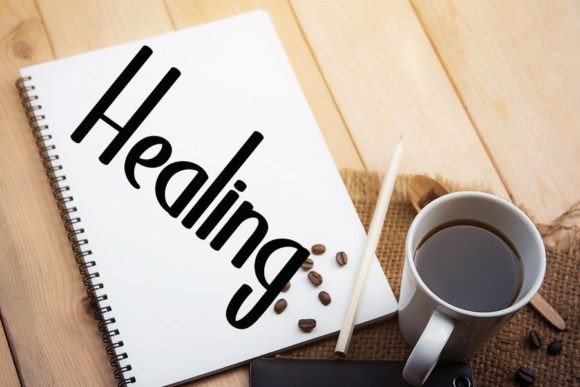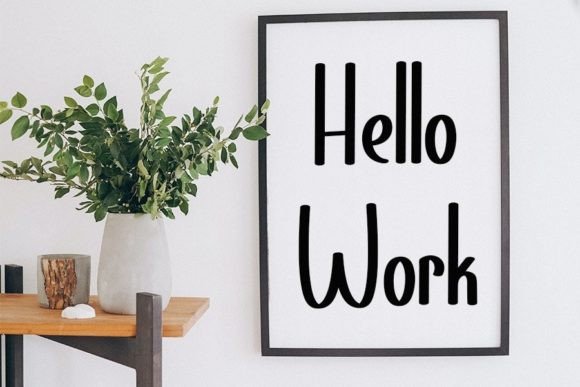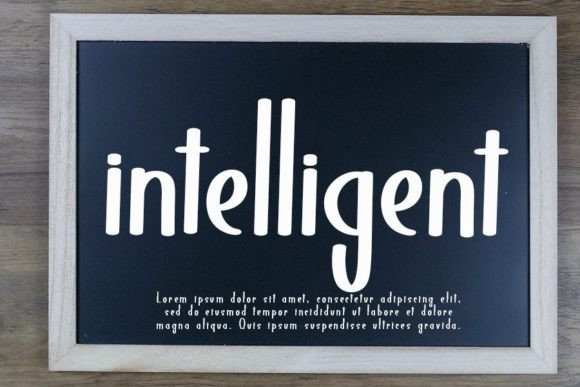
Happy Sunday Font
About Happy Sunday Font
“Happy Sunday” is not just a font; it’s a single handwritten typeface designed to bring an elegant touch to your favorite projects. With its distinct and timeless style, this font is perfect for creating designs that exude a sense of charm and sophistication.
Imagine “Happy Sunday” adding its elegant flair to your projects, enhancing the beauty of your designs with a touch of uniqueness. Let it be the font that brings a smile to your creations, making them stand out with a delightful and distinct character.
Envision “Happy Sunday” becoming a go-to font in your collection, allowing you to effortlessly create designs that radiate charm. The font’s single handwritten style makes it a fantastic choice for projects that require a touch of elegance and individuality.
For designs that demand a font with a charming and timeless aesthetic, “Happy Sunday” stands out as a typeface that brings a unique and delightful character. Its handwritten elegance offers a sophisticated way to convey a sense of individual charm.
In any context where you want to add a touch of elegance through typography, “Happy Sunday” is the font that brings a distinct charm. Let it be the key element that transforms your projects into delightful expressions of creativity and style.
Whether you’re working on digital or print designs, “Happy Sunday” is a font that brings a sense of charm to your letters. Let it be the font that adds an elegant and timeless touch to your logos, branding, invitations, and various other design projects.
Let “Happy Sunday” be the font that infuses your designs with a charming and sophisticated vibe, turning them into expressions of delightful creativity. Embrace its distinct and timeless style, and watch it bring a new level of charm to your design endeavors.